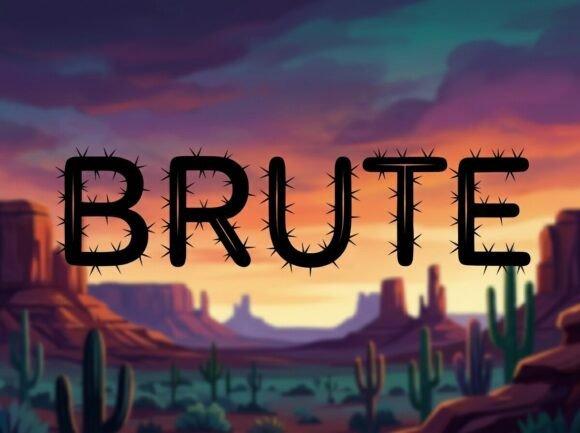
Unleash the Power of Brute Font: The Ultimate Display Font for Rugged and Resilient Designs
Are you tired of using generic fonts that fail to capture the essence of your brand? Look no further than Brute Font, a high-impact display font that’s as tough as the desert terrain. With its unique blend of classic western motifs and modern illustrative branding, Brute is the perfect choice for designers and crafters looking to add a touch of rugged resilience to their projects.
The Inspiration Behind Brute Font
Brute Font is inspired by the harsh yet beautiful landscape of the desert, where only the toughest and most resilient survive. The font’s creator aimed to capture the spirit of the wild west, where rugged individualism and a strong sense of adventure reign supreme. The result is a typeface that’s both sturdy and sharp, with a personality that’s hard to ignore.
Key Features of Brute Font
So, what makes Brute Font so special? Here are some of its key features:
- Monoline, rounded letterforms: Brute Font features monoline, rounded letterforms that give it a sturdy and robust feel.
- Rhythmic “cactus-thorn” spikes: The font’s unique “cactus-thorn” spikes add a touch of whimsy and personality to each letterform, bridging the gap between classic western motifs and modern illustrative branding.
- Sturdy structural weight: Brute Font has a sturdy structural weight that makes it perfect for high-impact designs, from outdoor adventure identities to boutique hot sauce labels.
- Sharp personality: With its bold and rugged design, Brute Font has a sharp personality that’s sure to grab attention and leave a lasting impression.
Perfect for Independent Brands and Designers
Brute Font is the perfect choice for independent outdoor adventure identities, boutique hot sauce labels, southwestern lifestyle brands, and high-impact “wild-and-weathered” social media headers. Whether you’re a designer, craft brewer, or outdoor enthusiast, Brute Font is sure to help you stand out from the crowd and establish a strong brand identity.
Use Cases for Brute Font
Here are some use cases where Brute Font really shines:
- Outdoor adventure identities: Use Brute Font to create bold and rugged logos for your outdoor gear company, hiking tour business, or adventure travel blog.
- Boutique hot sauce labels: Add a touch of personality to your hot sauce labels with Brute Font, and make your products stand out on store shelves.
- Southwestern lifestyle brands: Brute Font is perfect for southwestern lifestyle brands, from clothing and apparel to home decor and furniture.
- Social media headers: Use Brute Font to create eye-catching social media headers that showcase your brand’s personality and style.
Tips for Using Brute Font Effectively
Here are some tips for using Brute Font effectively in your designs:
- Pair with contrasting fonts: Pair Brute Font with contrasting fonts to create visual interest and add depth to your designs.
- Experiment with colors: Brute Font looks great in bold, bright colors, so don’t be afraid to experiment and find the perfect color scheme for your brand.
- Use it sparingly: While Brute Font is perfect for headlines and titles, it’s best to use it sparingly to avoid overwhelming your designs.
In conclusion, Brute Font is a high-impact display font that’s perfect for designers and crafters looking to add a touch of rugged resilience to their projects. With its unique blend of classic western motifs and modern illustrative branding, Brute Font is sure to help you establish a strong brand identity and stand out from the crowd.